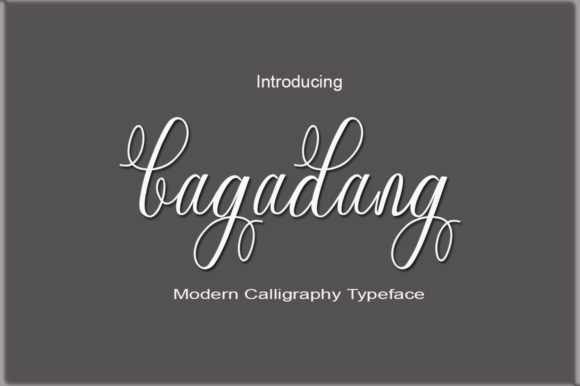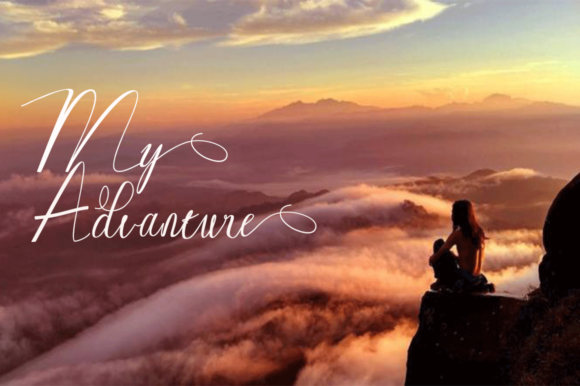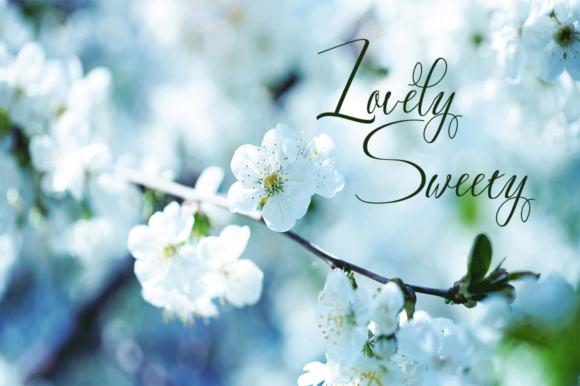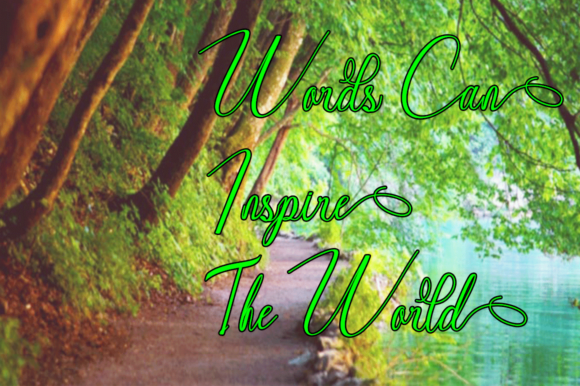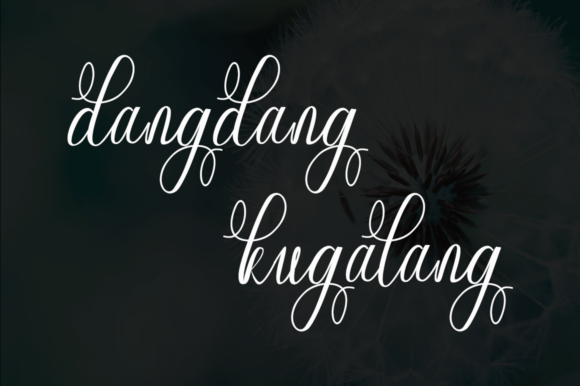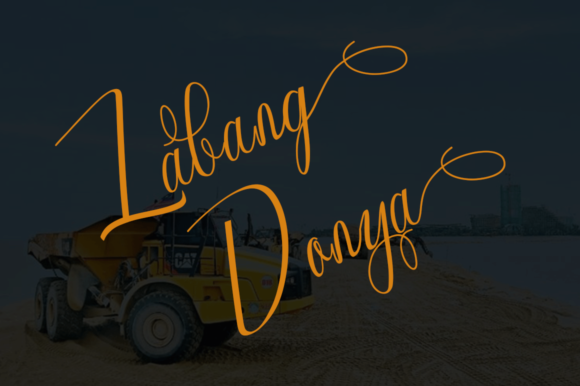
Bagadang Font
About Bagadang Font
The Bagadang is a stylish calligraphy font. It has a varied base line with classic and elegant touches.
This elegant typeface is suitable for titles, signatures, logos, wedding invitations, t-shirts, letterheads, and much more!